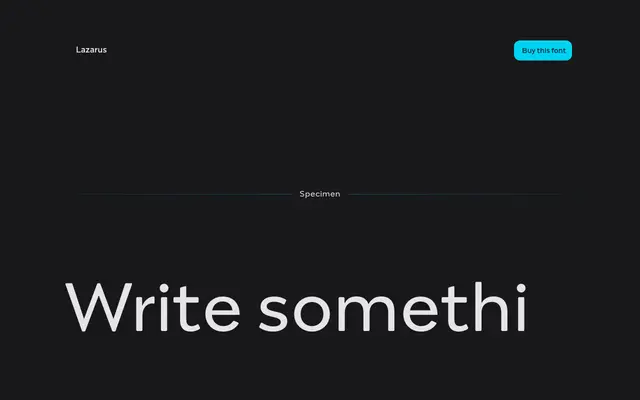
Lazarus
Capitalics · Ania Wieluńska · 2017
A four-style revival digitised from the 1594 'New Polish Karakter' typefaces developed by Jan Januszowski, including antiqua, italic, upright italic and a fraktur cut.
Ania Wieluńska spent over two years researching and digitising the typefaces commissioned for Jan Januszowski's orthographic reform publication of 1594, extending the original character sets to cover Western, Central and South-Eastern European Latin. The family pairs two historicising cuts based directly on Januszowski's own italic designs with a Regular drawn from the antiqua he used for Latin texts, and a Fraktur derived from the Mytel Polski. Italic includes decorative stylistic sets; Regular carries ornaments and pointing hands. The diploma project received a rector's distinction at the Warsaw Academy of Fine Arts and was exhibited at Coming Out 2017.
Digitised from a 16th-century Polish typeface system, the family includes antiqua, italic, upright italic and fraktur cuts, placing it firmly in the historical revival tradition of renaissance and humanist type.